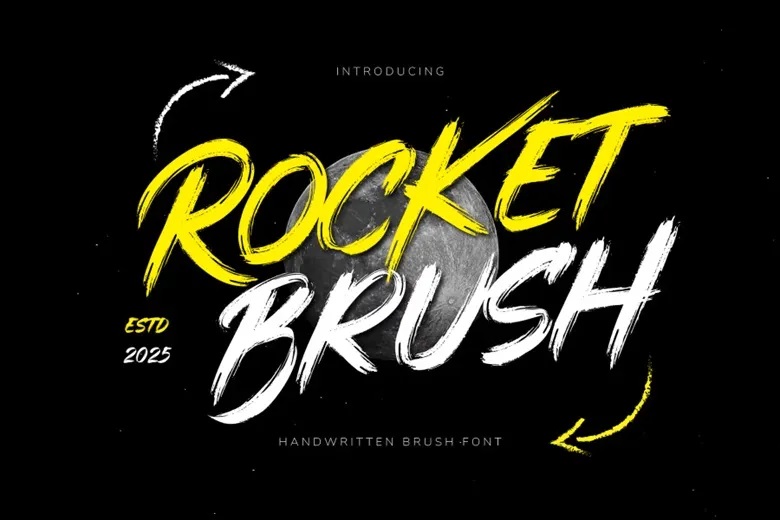
Rocket Brush Font
Rocket Brush, aulturally handcrafted brush type, can bring a burst of creative force, with the crass energetic typeface. It is charged with energetic lines and heavy character and this is why it is the best letter to be employed on a project that has to have attention and personality. No one can ignore that Rocket Brush has an amazing home made touch.
be it making edgy logos or eye-catching posters, or social media graphics that are sparkling. This font is based on the roughness of street art and the movement of brush strokes in the wild that makes the font seem to move and have a feeling with each word.
Rocket Brush Script Font